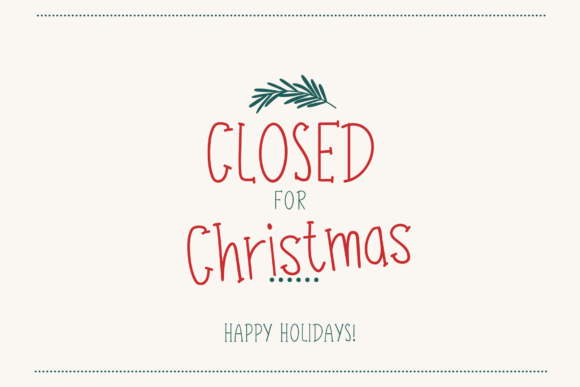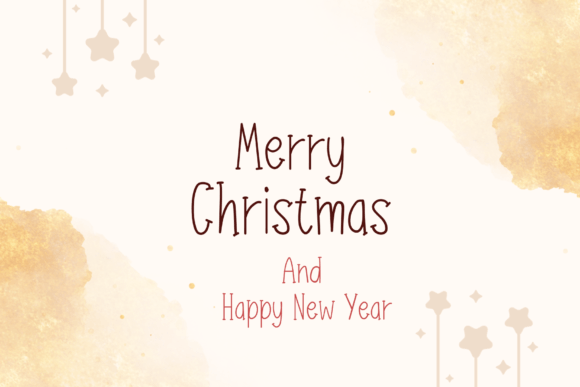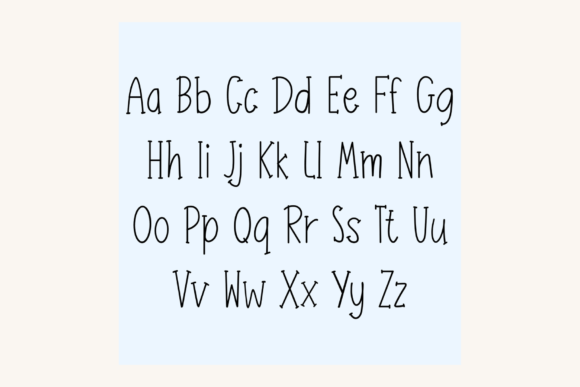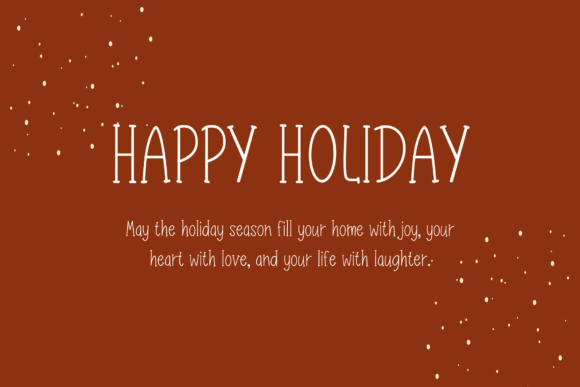
Introducing Christmas Eve Font: The Ultimate Handwritten Font for Your Holiday and Wedding Needs
Are you looking for a font that exudes warmth, friendliness, and a touch of sweetness? Look no further than the Christmas Eve Font! This beautiful handwritten font is perfect for designers and crafters who want to add a personal touch to their creations. With its incredibly versatile style, Christmas Eve Font is ideal for a wide range of projects, from wedding invitations and stationary art to social media posts and more.
The Charm of Christmas Eve Font
Christmas Eve Font is a sweet and friendly handwritten font that is sure to capture the hearts of anyone who lays eyes on it. Its unique and elegant style makes it perfect for creating beautiful and eye-catching designs that will leave a lasting impression. Whether you’re designing wedding invitations, greeting cards, or social media posts, Christmas Eve Font is the perfect choice.
What Makes Christmas Eve Font So Versatile?
One of the things that sets Christmas Eve Font apart from other fonts is its incredible versatility. This font can be used for a wide range of projects, including:
- Wedding invitations and stationery: Create beautiful and elegant wedding invitations, save-the-date cards, and more with Christmas Eve Font.
- Stationary art: Use Christmas Eve Font to create stunning stationary art, including greeting cards, gift tags, and more.
- Social media posts: Add a personal touch to your social media posts with Christmas Eve Font. Perfect for creating eye-catching graphics and quotes.
- Branding and packaging: Use Christmas Eve Font to create custom branding and packaging for your business or product.
Why Designers and Crafters Love Christmas Eve Font
Designers and crafters love Christmas Eve Font for many reasons. Here are just a few:
- Easy to read: Christmas Eve Font is clear and easy to read, making it perfect for body text and headlines.
- Highly customizable: With Christmas Eve Font, you can create a wide range of designs and styles by adjusting the font size, color, and more.
- Unique and elegant: Christmas Eve Font has a unique and elegant style that will set your designs apart from the rest.
- Time-saving: With Christmas Eve Font, you can create beautiful designs in no time. Perfect for designers and crafters who are short on time.
How to Use Christmas Eve Font
Using Christmas Eve Font is easy! Here are a few tips to get you started:
- Pair it with other fonts: Christmas Eve Font pairs well with other fonts, including serif and sans-serif fonts.
- Experiment with colors: Try out different colors and color combinations to find the perfect look for your design.
- Adjust the font size: Adjust the font size to create visual interest and hierarchy in your design.
- Use it for headlines and body text: Use Christmas Eve Font for both headlines and body text to create a cohesive look.
In conclusion, Christmas Eve Font is a beautiful and versatile handwritten font that is perfect for designers and crafters. With its unique and elegant style, Christmas Eve Font is ideal for a wide range of projects, from wedding invitations and stationary art to social media posts and more. Whether you’re looking for a font that exudes warmth, friendliness, and sweetness, Christmas Eve Font is the perfect choice.